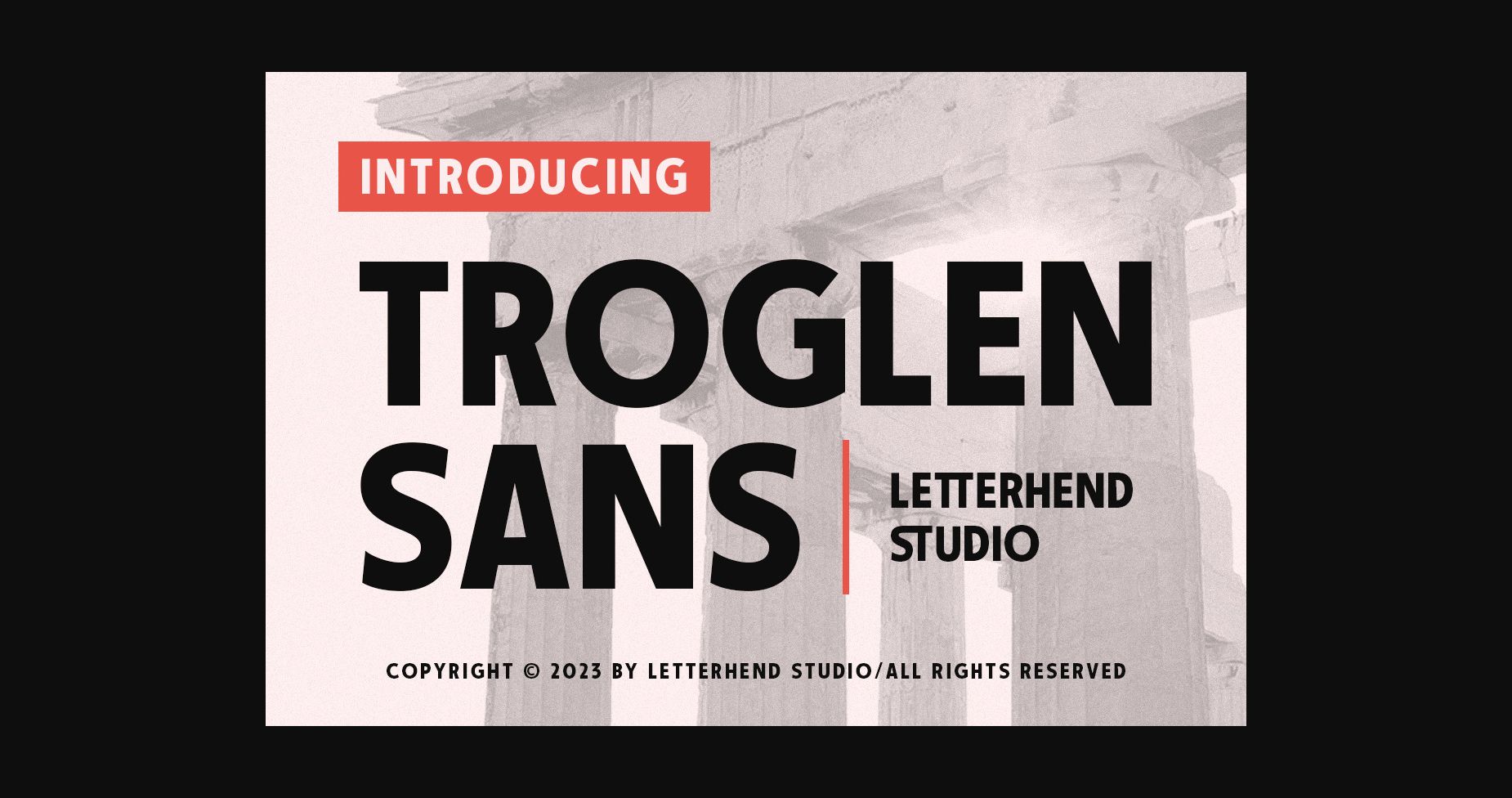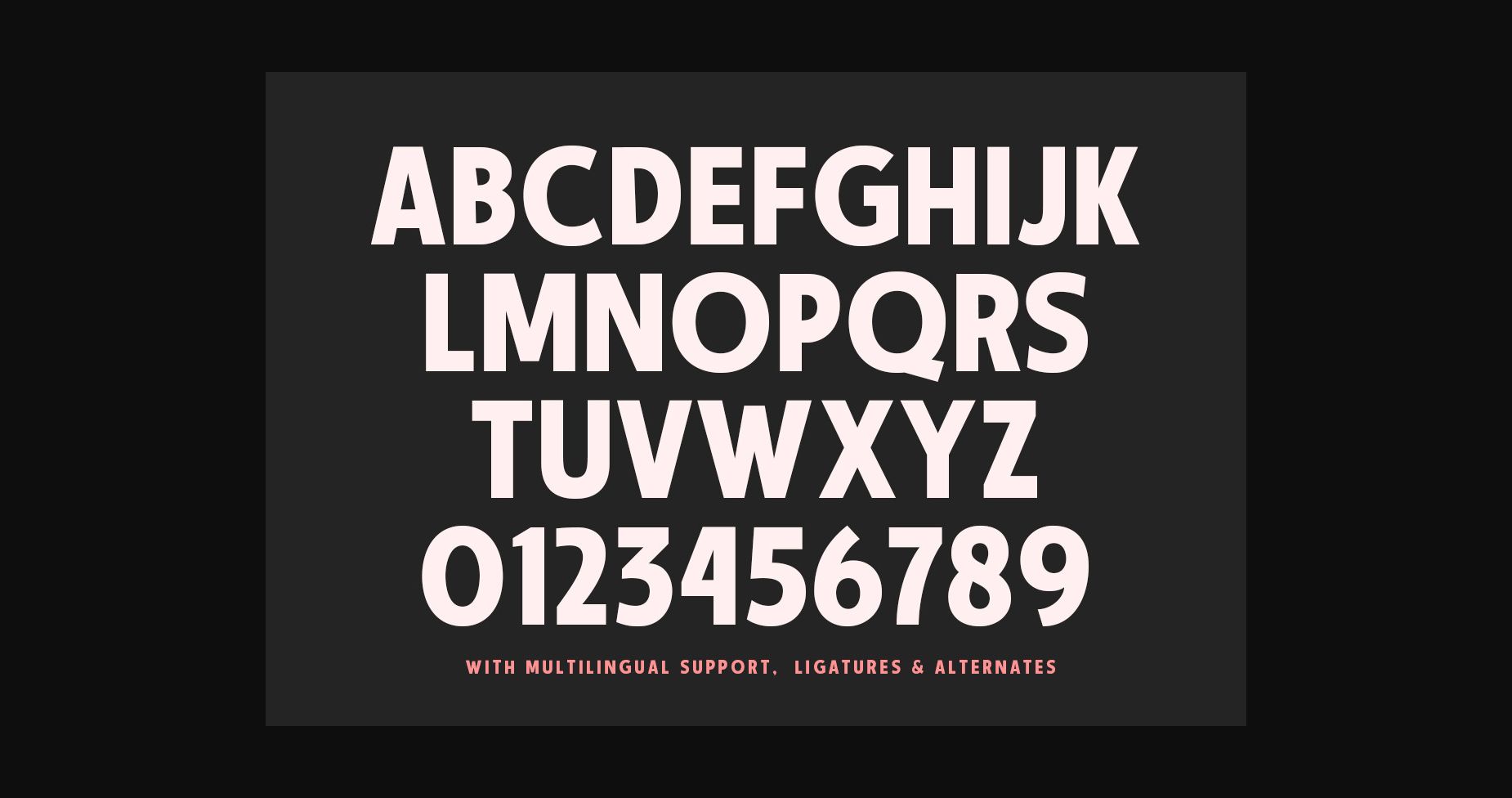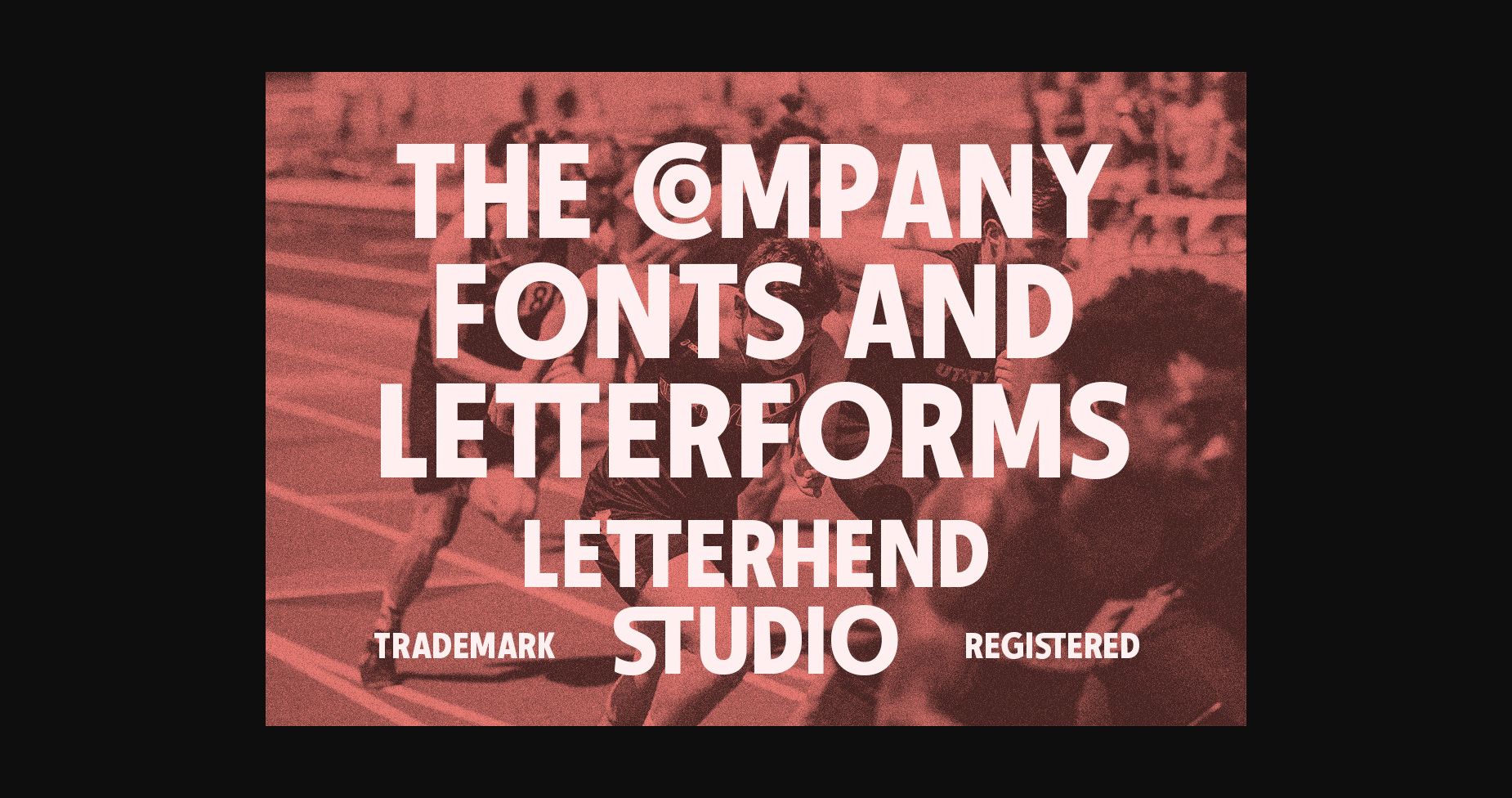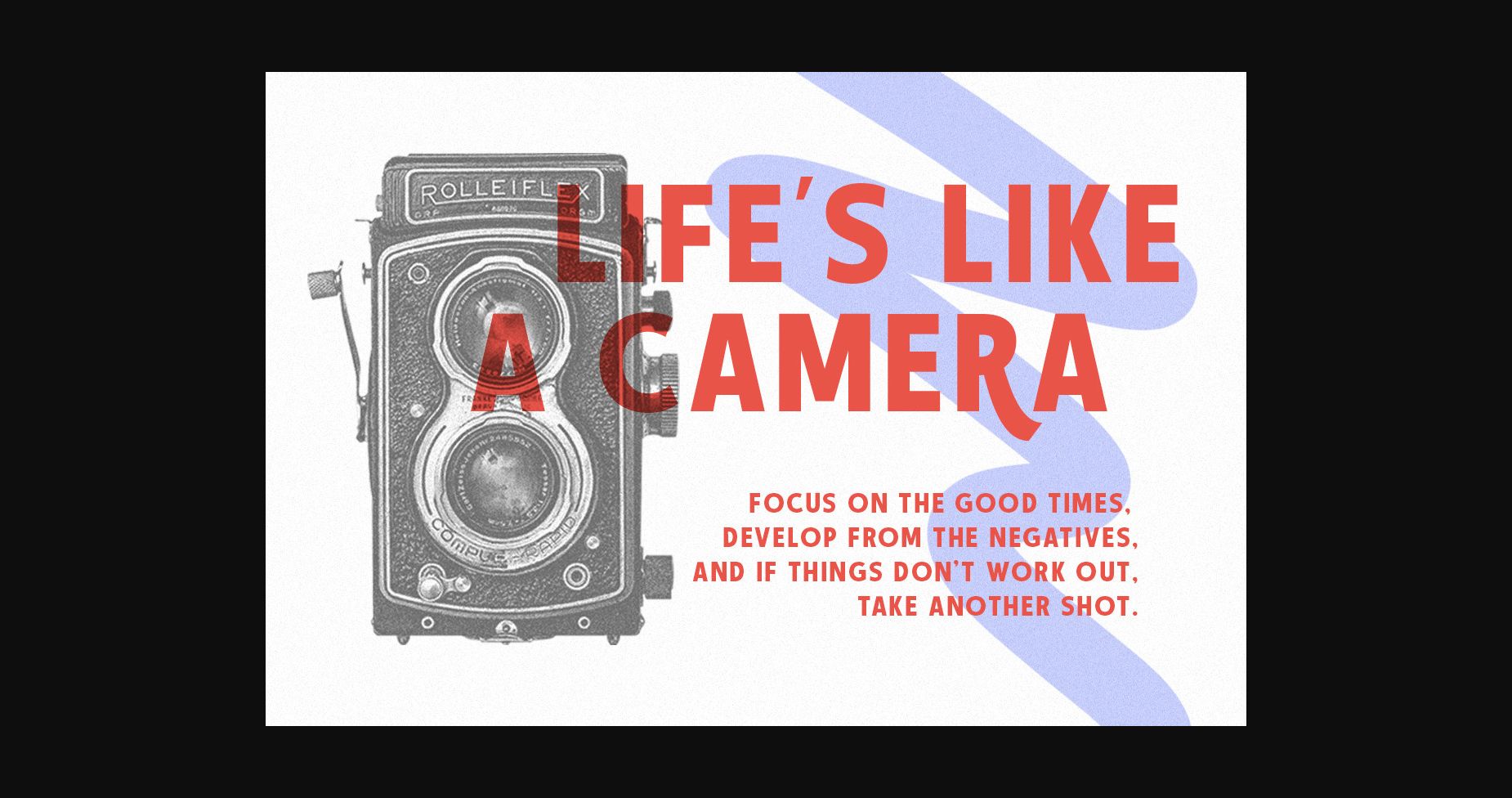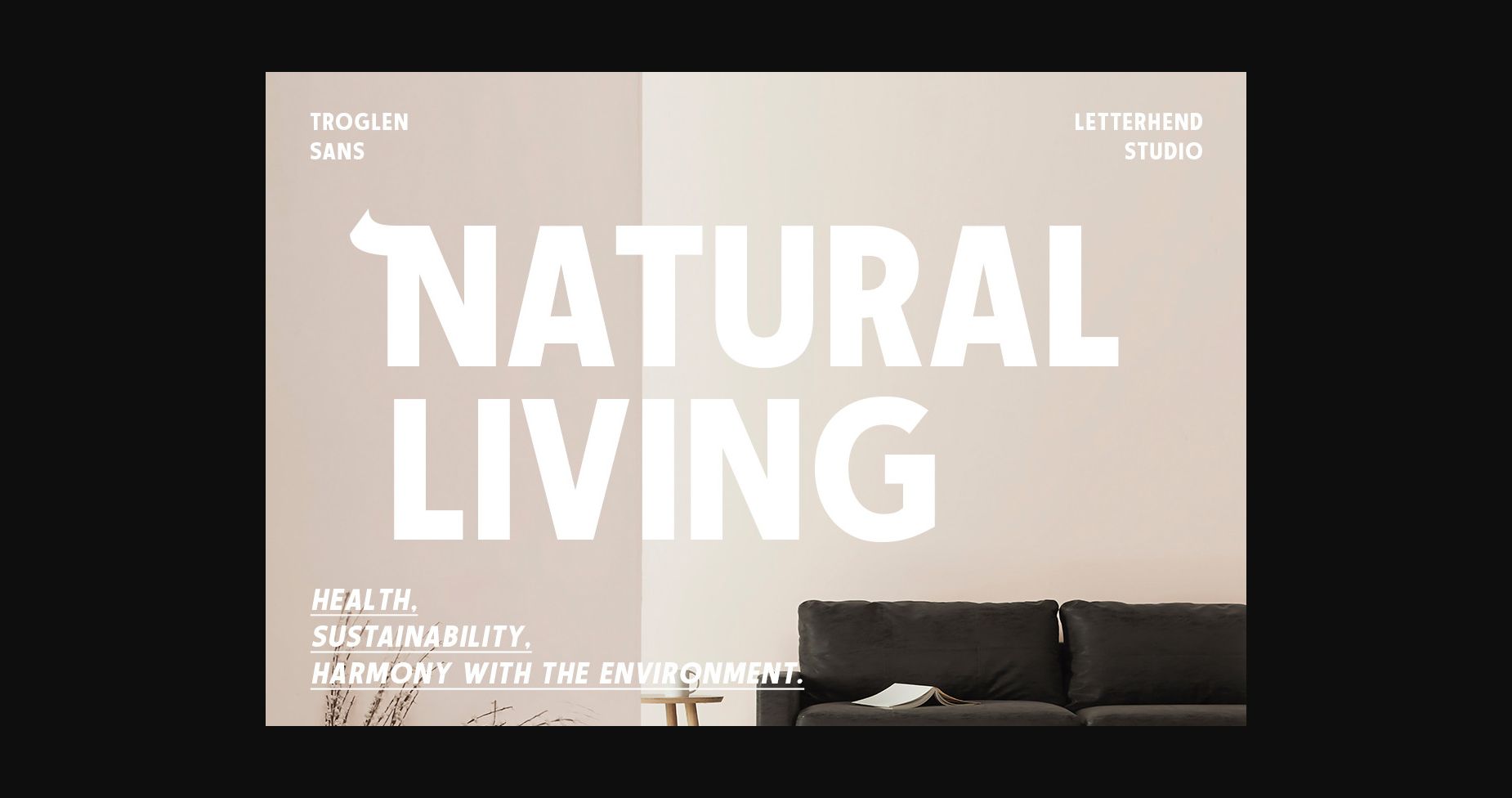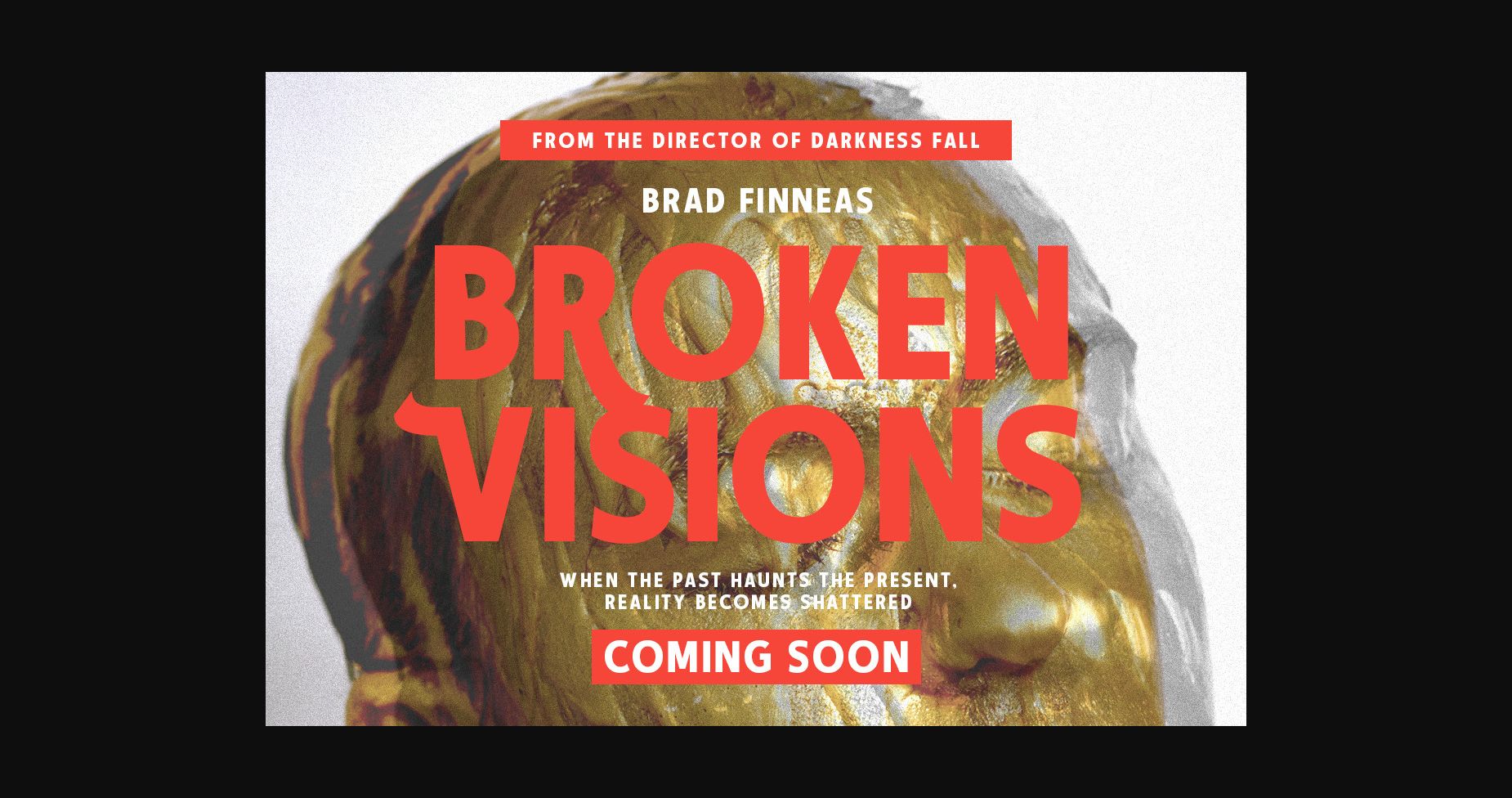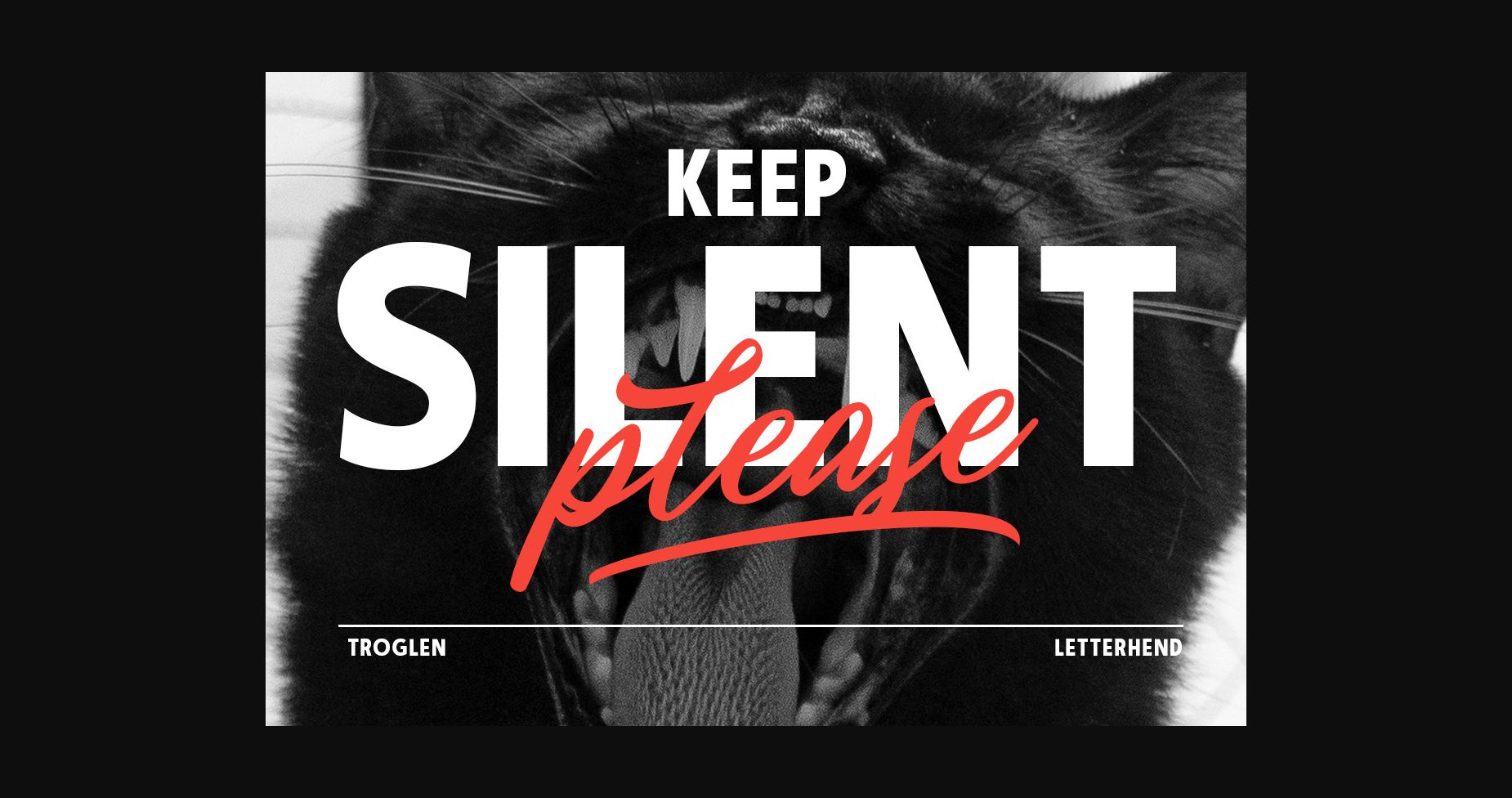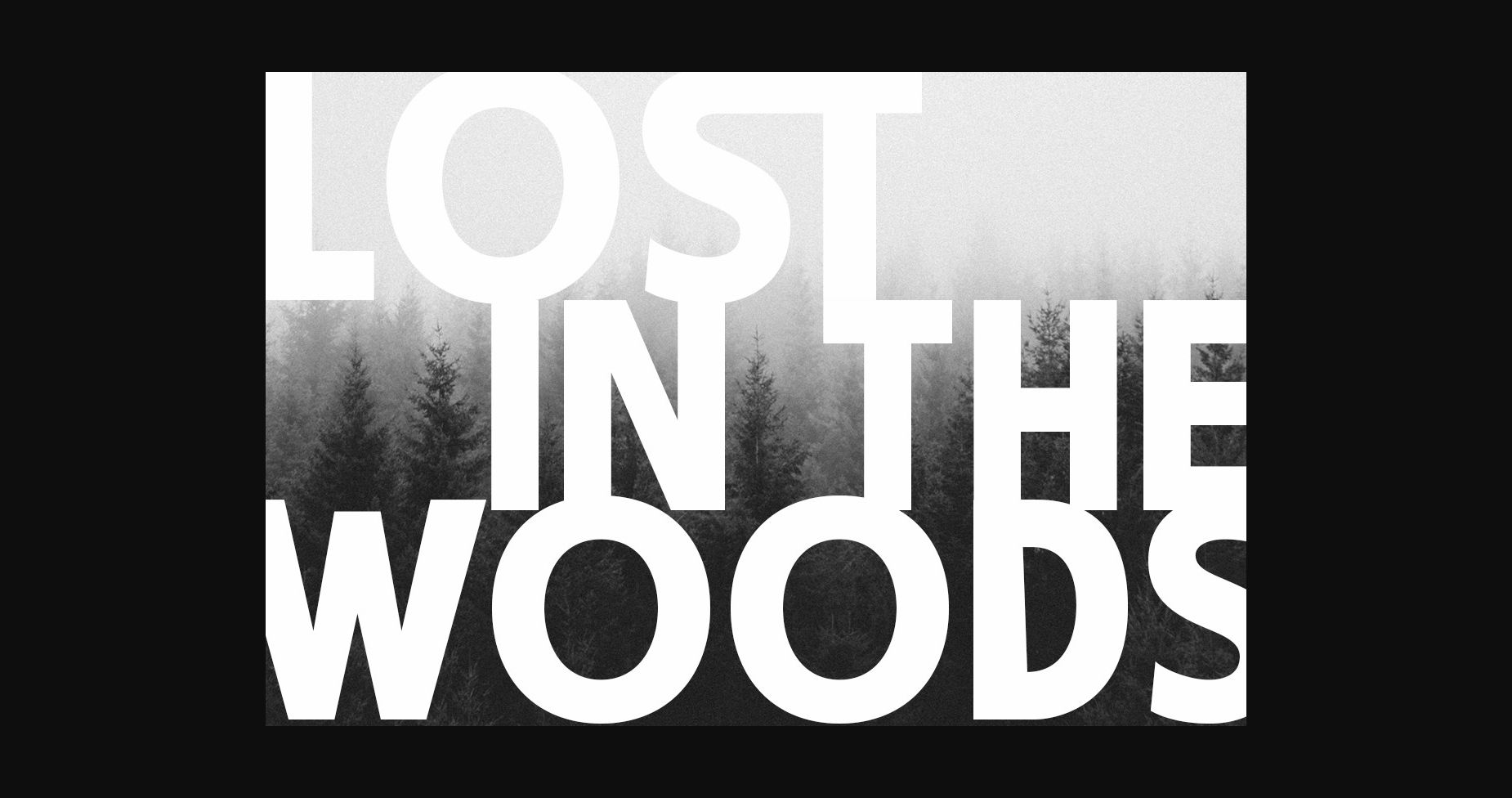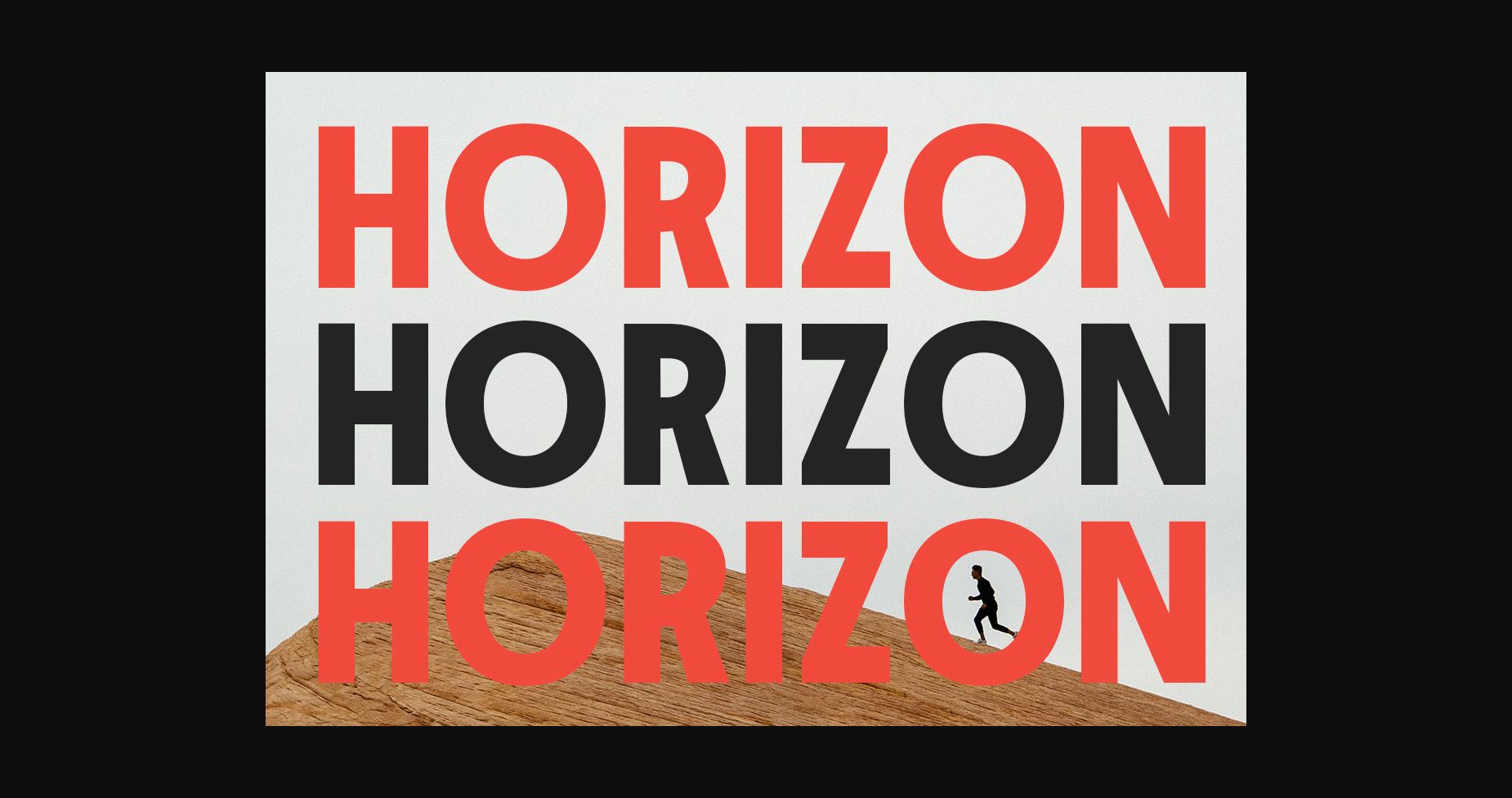
Troglen Sans Font
About Troglen Sans Font
Troglen Sans is a minimalist and contemporary sans-serif font, with clean lines and simple shapes. The letters are evenly spaced and uniform, creating a sleek and modern look. Its lack of ornamentation and fussiness makes it versatile and suitable for a wide range of designs, from branding and advertising to editorial and web design.